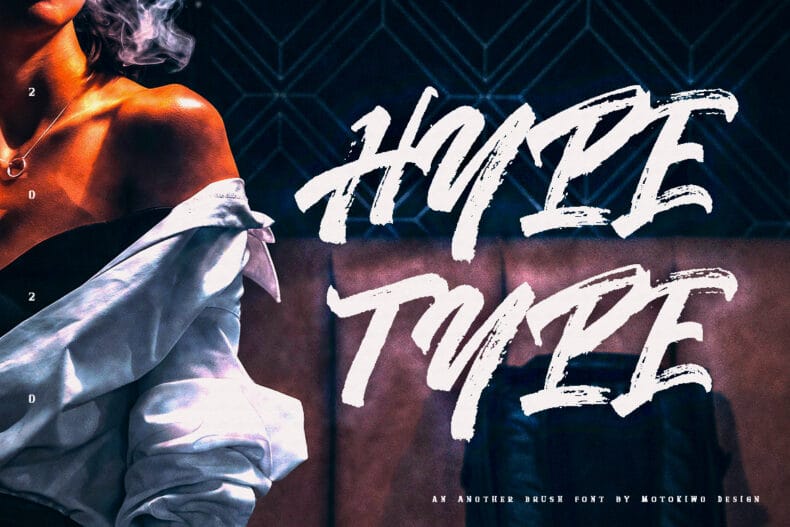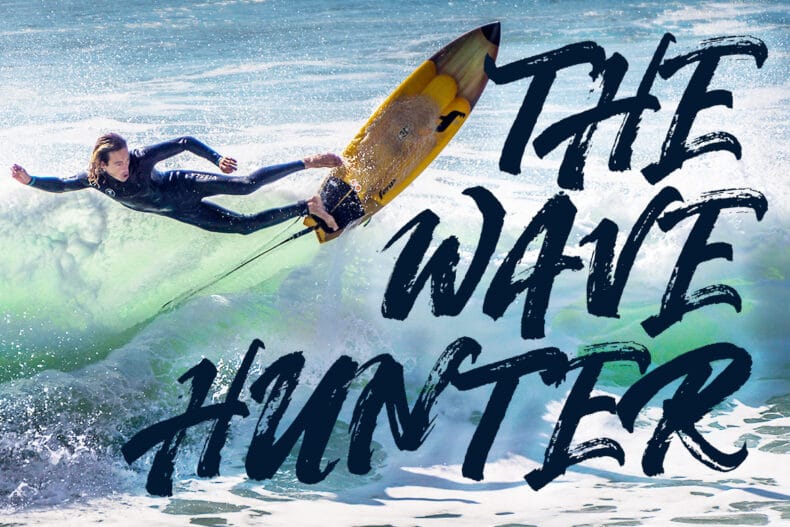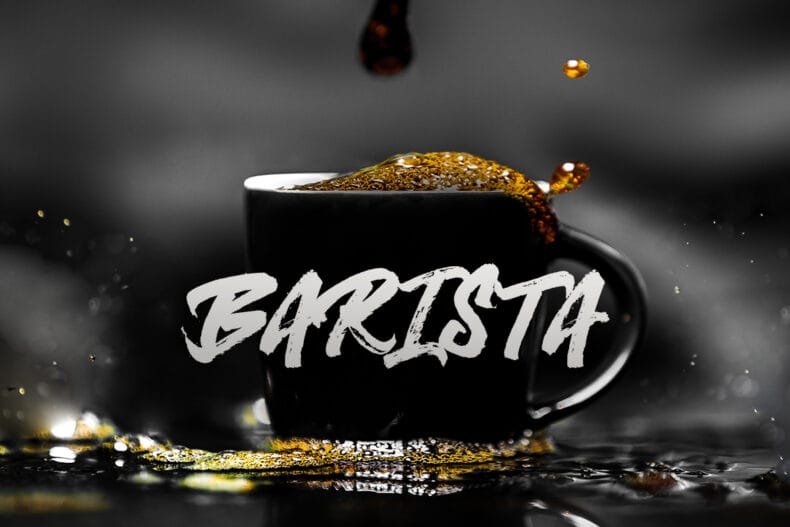
Hypetype, Painted Brush Font
Hypetype is an all-caps painted brush font with natural texture. It brings an energetic display character to posters, headlines, and short graphic statements.
Explore Hypetype when the type should feel like part of the artwork. A short title or bold phrase gives its painted texture room to show, whether used on a simple field of color or alongside photography.
The font includes capital letters, numbers, and punctuation. Test your final wording and background together so the texture adds character without making the message difficult to read.